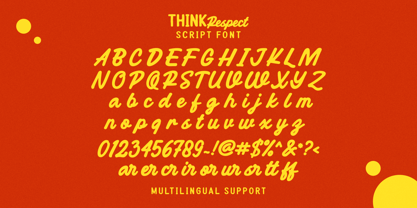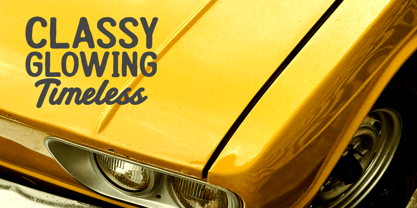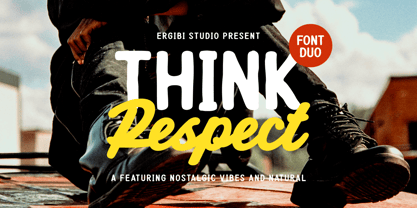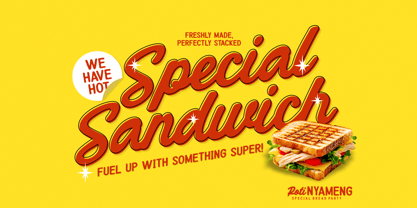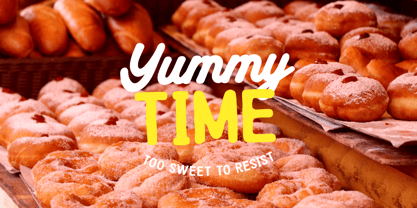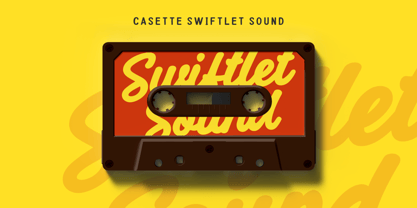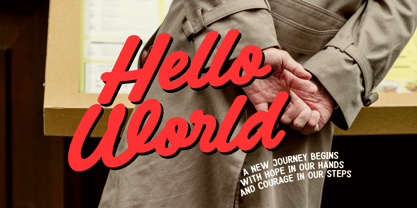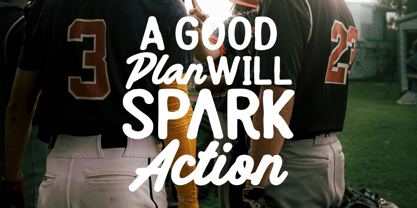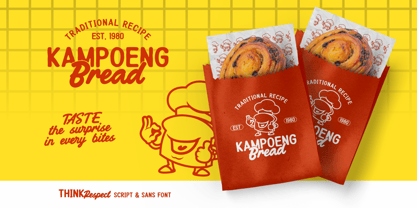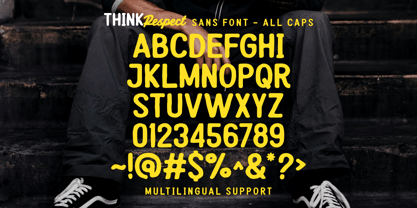
Think Respect
von Ergibi Studio
Die Schriftfamilie Think Respect wurde von Riyadh Rahman entworfen und von Ergibi Studio veröffentlicht. Think Respect enthält 2 Stile und Familienpaketoptionen. Mehr über diese Familie
Think Respect is a featuring nostalgic vibes and natural. It combines a clean, organic sans serif with a playful script to give your designs that extra spark. Perfect for everything from t-shirts and posters to social media posts and brand logos, this font brings a cool, retro-modern feel that's full of personality. Whether you're going for something sporty or just want your message to stand out, Think Respect is ready to make it happen.